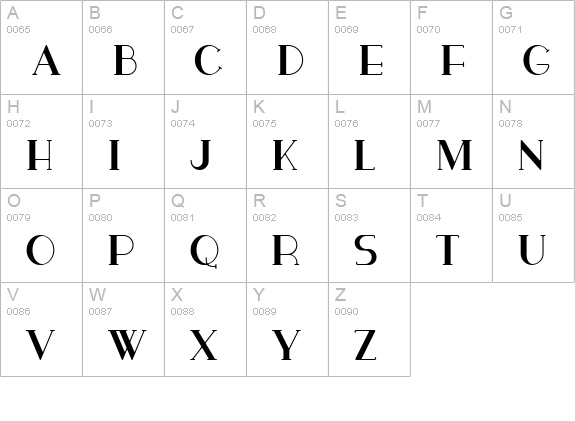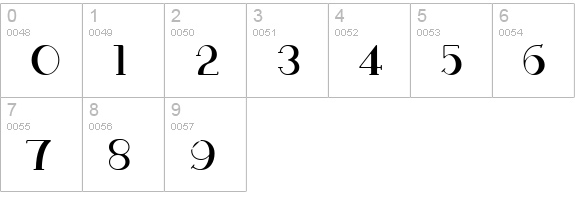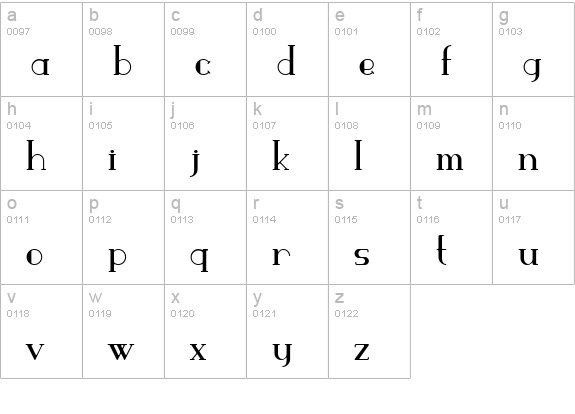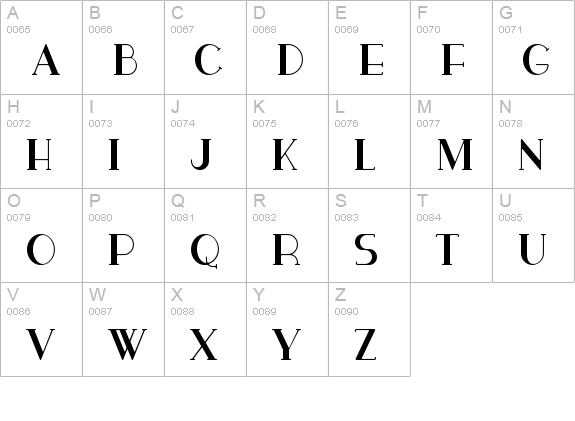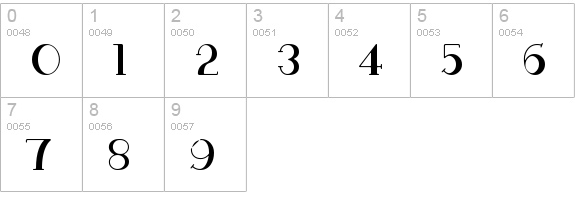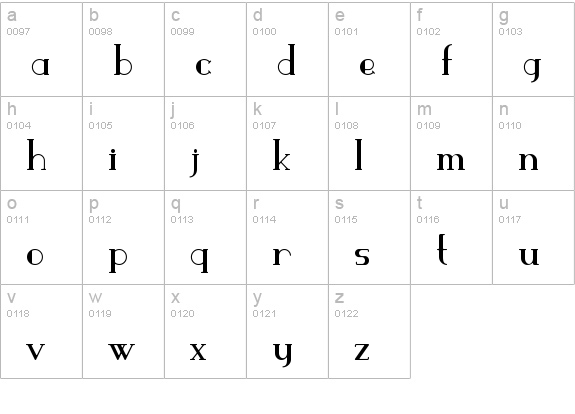
ParismatchRegular Font Details
ParismatchRegular is a stunning and versatile font that effortlessly captures attention with its unique blend of elegance and modernity. Its clean and crisp letterforms exude sophistication, making it the perfect choice for a wide range of design projects. This font features a subtle balance between thin and bold strokes, creating a harmonious and visually pleasing appearance. Its gentle curves and sharp angles provide a sense of dynamism and energy, adding a touch of excitement to any design. ParismatchRegular is a true workhorse font, suitable for both headlines and body text. Whether you're designing a magazine layout, creating a logo, or crafting a website, this font will bring a touch of class to your project. One of the best aspects of ParismatchRegular is that it is freely available to download at FontsMarket.com. This means that you can easily access this exceptional font without any cost, making it an excellent choice for designers on a budget. With ParismatchRegular, you can elevate your designs to new heights, creating a lasting impact on your audience. Its versatility and timeless appeal make it a must-have font for any designer looking to make a statement. So why wait? Download ParismatchRegular today and unlock a world of design possibilities.